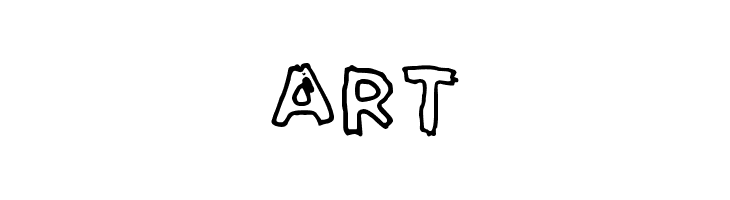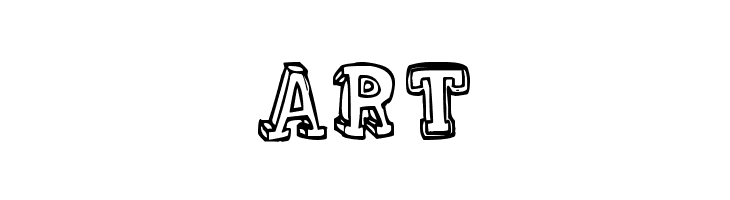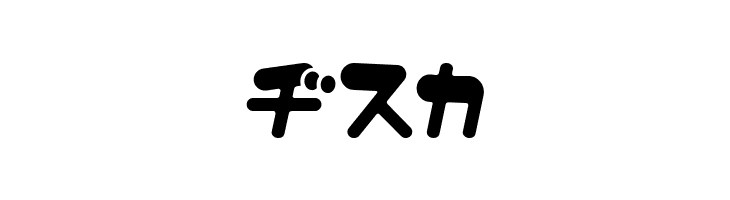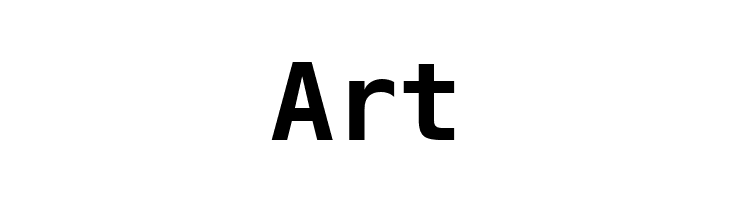
A decorative font made of human figures forming letters and numbers in a Renaissance style.
A bold, decorative font with a hand-drawn, sketch-like appearance.
A bold, playful handwritten font with rounded, thick strokes.
A playful, hand-drawn font with wavy, irregular outlines.
A bold, rounded font with a playful and modern style.
A bold, rounded font with a playful and modern aesthetic.
A decorative font with a cross-stitch, embroidered appearance.
A bold, monospaced font with a clean and modern design, perfect for coding.
A modern, monospaced font with bold italic styling, ideal for coding and technical use.